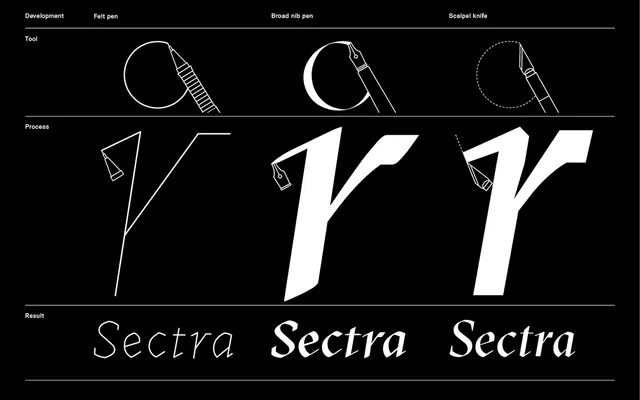
GT Sectra
Grilli Type · Dominik Huber, Marc Kappeler (Moiré), Noël Leu · 2013
A 30-style editorial serif combining broad-nib calligraphy with scalpel sharpness, originally drawn for Reportagen magazine.
A contemporary serif by Dominik Huber, Marc Kappeler (Moiré) and Noël Leu, released in 2013 and offered in 30 styles. Grilli pair broad-nib calligraphy with scalpel sharpness, and the family has expanded from its origins on Reportagen magazine into GT Sectra, Fine and Display subfamilies, with Cyrillic, Greek and Vietnamese script extensions consulted on by Maria Doreuli, Vassilis Georgiou and Donny Trương.
Grilli describe it as combining the calligraphy of the broad nib pen with the sharpness of the scalpel knife. Originally designed for the long-form magazine Reportagen and expanded into three subfamilies.